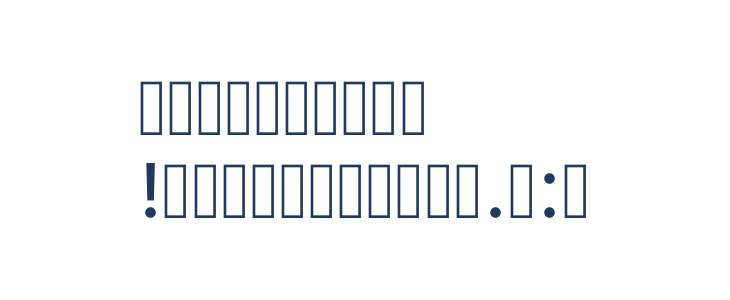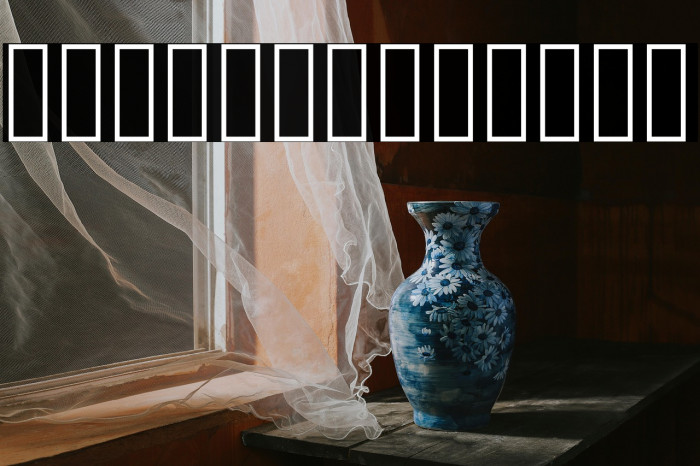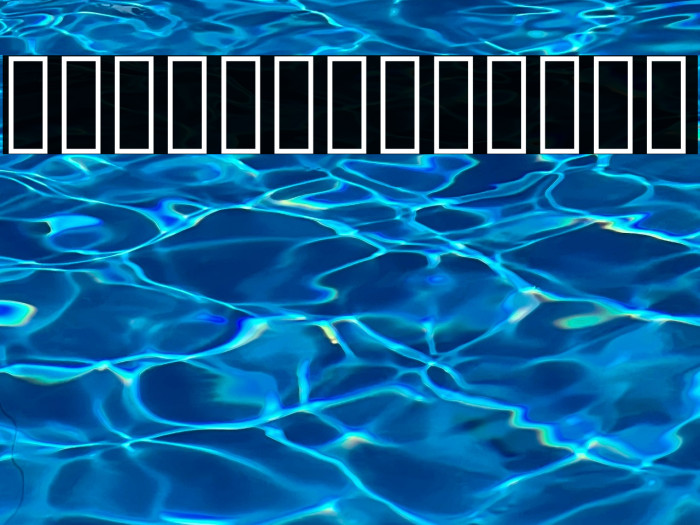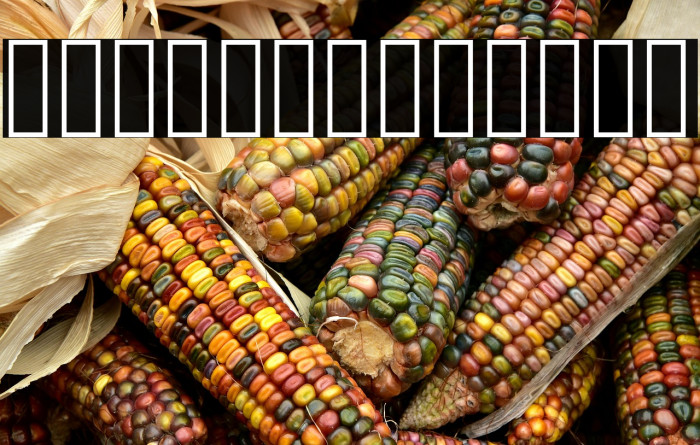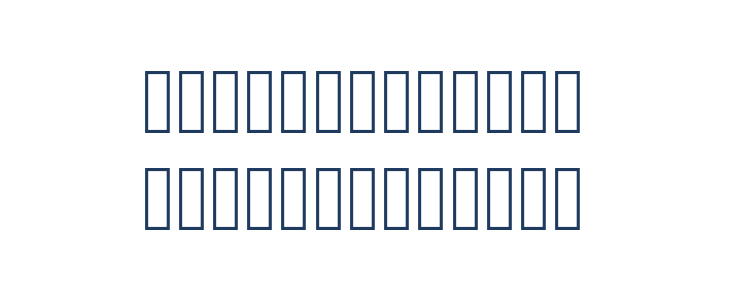
Vazir WOL Font
Vazir WOL Description
This font features a modern and clean design with a focus on readability and simplicity. The characters are uniformly structured, offering a balanced and harmonious appearance. The lines are crisp and clear, providing a professional and polished look. The font's geometric shapes and consistent stroke widths contribute to its contemporary style, making it suitable for a wide range of applications. The punctuation marks are distinct and well-defined, ensuring clarity in written communication.